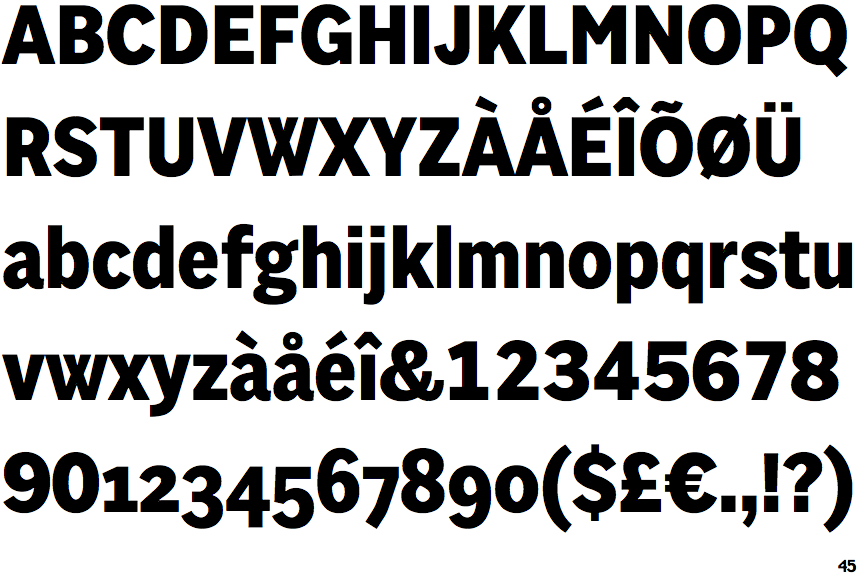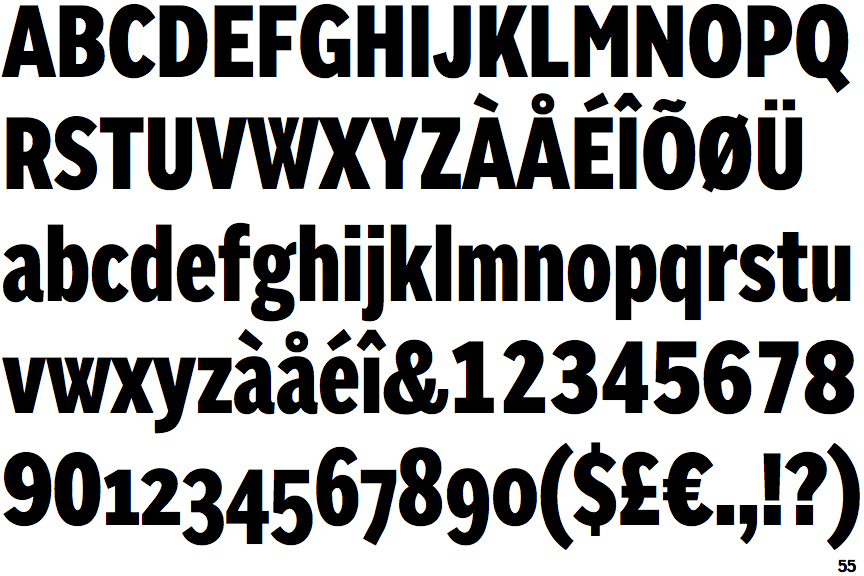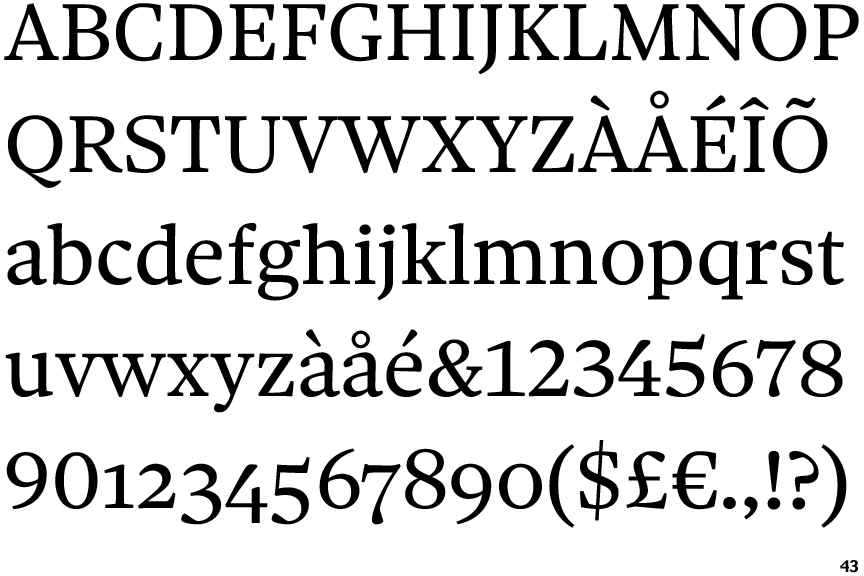
Sole Font Style . A serif typeface with 4 styles, available from adobe fonts for sync and. Sole serif is a newspaper face with features relating to book typography. Sole serif is available in an extensive range of cuts including extra bold and ultra thin. Sole serif is available in an extensive range of cuts including extra bold and ultra thin. Explore sole serif variable designed by luciano perondi at adobe fonts. It offers a wide range of weights, styles, languages and. Comes in six optical sizes (text, caption, headline, subhead, display, bigdisplay), each in six weights plus italics. Luciano perondi and riccardo olocco have designed sole sans, the new sans created to accompany sole serif. Sole serif is available in an extensive range of cuts including extra bold and ultra thin. Inspiration from francesco griffo’s romans was adapted to resist the rough usage ty.
Sole serif is available in an extensive range of cuts including extra bold and ultra thin. Sole serif is available in an extensive range of cuts including extra bold and ultra thin. It offers a wide range of weights, styles, languages and. Sole serif is a newspaper face with features relating to book typography. Sole serif is available in an extensive range of cuts including extra bold and ultra thin. Inspiration from francesco griffo’s romans was adapted to resist the rough usage ty. Comes in six optical sizes (text, caption, headline, subhead, display, bigdisplay), each in six weights plus italics. Luciano perondi and riccardo olocco have designed sole sans, the new sans created to accompany sole serif. A serif typeface with 4 styles, available from adobe fonts for sync and. Explore sole serif variable designed by luciano perondi at adobe fonts.
Sole Font Style Explore sole serif variable designed by luciano perondi at adobe fonts. Inspiration from francesco griffo’s romans was adapted to resist the rough usage ty. It offers a wide range of weights, styles, languages and. Comes in six optical sizes (text, caption, headline, subhead, display, bigdisplay), each in six weights plus italics. Luciano perondi and riccardo olocco have designed sole sans, the new sans created to accompany sole serif. Sole serif is a newspaper face with features relating to book typography. A serif typeface with 4 styles, available from adobe fonts for sync and. Sole serif is available in an extensive range of cuts including extra bold and ultra thin. Sole serif is available in an extensive range of cuts including extra bold and ultra thin. Sole serif is available in an extensive range of cuts including extra bold and ultra thin. Explore sole serif variable designed by luciano perondi at adobe fonts.
lettering, maiuscole, caratteri, lettere, lombardo, longobardo, gotico Sole Font Style Sole serif is available in an extensive range of cuts including extra bold and ultra thin. Sole serif is available in an extensive range of cuts including extra bold and ultra thin. It offers a wide range of weights, styles, languages and. A serif typeface with 4 styles, available from adobe fonts for sync and. Comes in six optical sizes. Sole Font Style.
Sole Serif Font Family » Free Download Vector Stock Image Icon Sole Font Style Comes in six optical sizes (text, caption, headline, subhead, display, bigdisplay), each in six weights plus italics. Luciano perondi and riccardo olocco have designed sole sans, the new sans created to accompany sole serif. Sole serif is available in an extensive range of cuts including extra bold and ultra thin. Sole serif is available in an extensive range of cuts. Sole Font Style.
Vintage Calligraphic Script Font vector letters numbers Symbols Stock Sole Font Style Sole serif is available in an extensive range of cuts including extra bold and ultra thin. Luciano perondi and riccardo olocco have designed sole sans, the new sans created to accompany sole serif. It offers a wide range of weights, styles, languages and. Sole serif is a newspaper face with features relating to book typography. Inspiration from francesco griffo’s romans. Sole Font Style.
Shoe Sole Font Stock Photos, Pictures & RoyaltyFree Images iStock Sole Font Style Comes in six optical sizes (text, caption, headline, subhead, display, bigdisplay), each in six weights plus italics. Sole serif is available in an extensive range of cuts including extra bold and ultra thin. Sole serif is available in an extensive range of cuts including extra bold and ultra thin. Luciano perondi and riccardo olocco have designed sole sans, the new. Sole Font Style.
Istituto Ottico Bertola (Il Sole) Fonts In Use Sole Font Style Sole serif is a newspaper face with features relating to book typography. It offers a wide range of weights, styles, languages and. Luciano perondi and riccardo olocco have designed sole sans, the new sans created to accompany sole serif. Explore sole serif variable designed by luciano perondi at adobe fonts. A serif typeface with 4 styles, available from adobe fonts. Sole Font Style.
Sole Survivor Font download free Sole Font Style Explore sole serif variable designed by luciano perondi at adobe fonts. Inspiration from francesco griffo’s romans was adapted to resist the rough usage ty. Sole serif is a newspaper face with features relating to book typography. Sole serif is available in an extensive range of cuts including extra bold and ultra thin. Sole serif is available in an extensive range. Sole Font Style.
SoleaLight font Sole Font Style Sole serif is available in an extensive range of cuts including extra bold and ultra thin. A serif typeface with 4 styles, available from adobe fonts for sync and. It offers a wide range of weights, styles, languages and. Inspiration from francesco griffo’s romans was adapted to resist the rough usage ty. Sole serif is available in an extensive range. Sole Font Style.
36 Font Styles to Consider When Branding Your Business or Blog Sole Font Style Inspiration from francesco griffo’s romans was adapted to resist the rough usage ty. Sole serif is a newspaper face with features relating to book typography. A serif typeface with 4 styles, available from adobe fonts for sync and. Sole serif is available in an extensive range of cuts including extra bold and ultra thin. It offers a wide range of. Sole Font Style.
40+ Shoe Sole Font Stock Photos, Pictures & RoyaltyFree Images iStock Sole Font Style It offers a wide range of weights, styles, languages and. Inspiration from francesco griffo’s romans was adapted to resist the rough usage ty. Comes in six optical sizes (text, caption, headline, subhead, display, bigdisplay), each in six weights plus italics. Luciano perondi and riccardo olocco have designed sole sans, the new sans created to accompany sole serif. Explore sole serif. Sole Font Style.